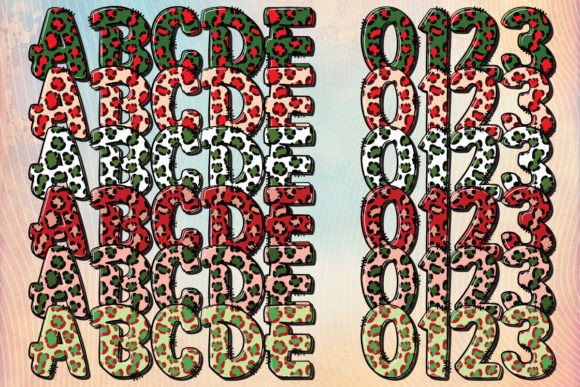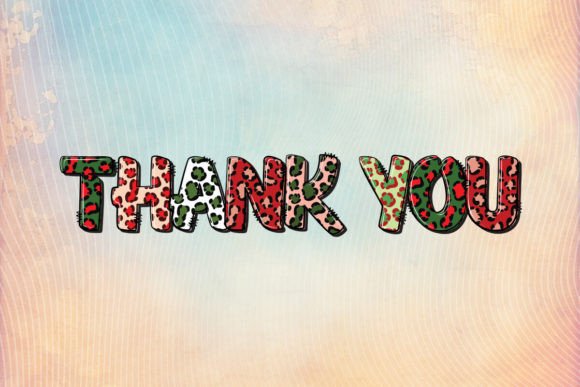
Unleash the Wild Side of Christmas with the Christmas Leopard Font
Are you tired of traditional holiday typography? Look no further than the Christmas Leopard Font, a unique and eye-catching typeface that combines the fierce aesthetic of leopard skin with the festive charm of Christmas. This vibrant and exotic font is perfect for designers and crafters looking to add a touch of adventure to their holiday-themed compositions.
A Potent Blend of Patterns
The Christmas Leopard Font cleverly combines the vivid textures of leopard skin with the festive allure of Christmas, creating a potent blend of patterns that is sure to turn heads. The font features a bold and edgy texture, with a thrilling beauty that adds an intriguing sense of adventure to any holiday design. The clever use of leopard and cheetah patterns brings a vibrant and exotic touch to the alphabet, providing an unexpected twist to traditional holiday imagery.
To get the most out of the Christmas Leopard Font, it’s essential to understand how to use it effectively. Here are a few tips for designers and crafters:
- Use the font to add a bold and eye-catching element to your holiday designs, such as on greeting cards, invitations, or social media graphics.
- Experiment with different colors and textures to enhance the font’s wild and whimsical charm.
- Pair the font with other holiday-themed elements, such as snowflakes, holly, or reindeer, to create a cohesive and festive design.
So why choose the Christmas Leopard Font for your holiday designs? Here are just a few reasons:
- Unique and eye-catching: The Christmas Leopard Font is a one-of-a-kind typeface that is sure to turn heads.
- Versatile: The font is available in both black and color versions, making it suitable for a range of design applications.
The Christmas Leopard Font is a unique and exciting typeface that is perfect for designers and crafters looking to add a touch of wild and whimsical charm to their holiday designs. With its potent blend of leopard and cheetah patterns, bold and edgy texture, and thrilling beauty, this font is sure to ignite a fierce aesthetic in any holiday composition. Whether you’re a seasoned designer or a crafter just starting out, the Christmas Leopard Font is a must-have for any holiday project.